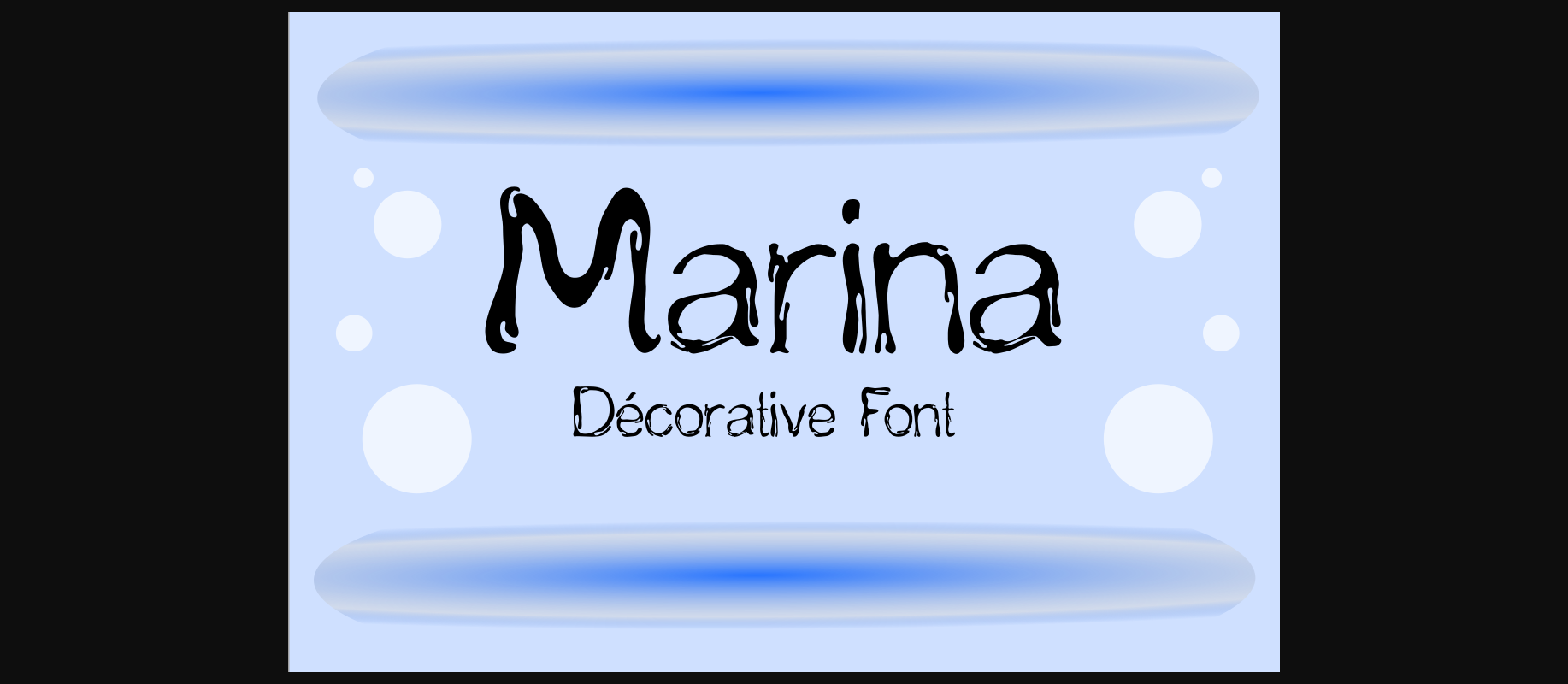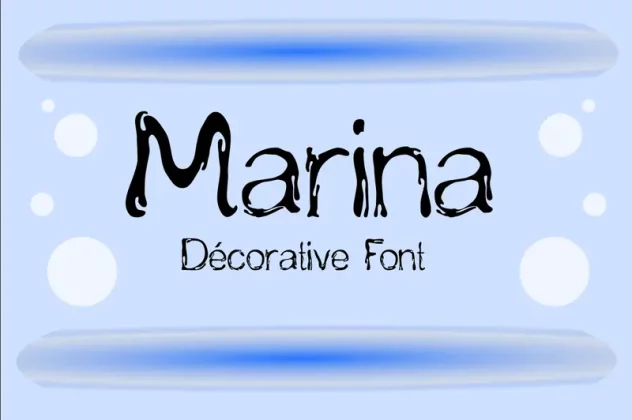
Marina Font
About Marina Font
Marina is a fun, decorative textured font; this decorative font was crafted to emulate the look and feel of liquid, and can give your designs a more thoughtful look.